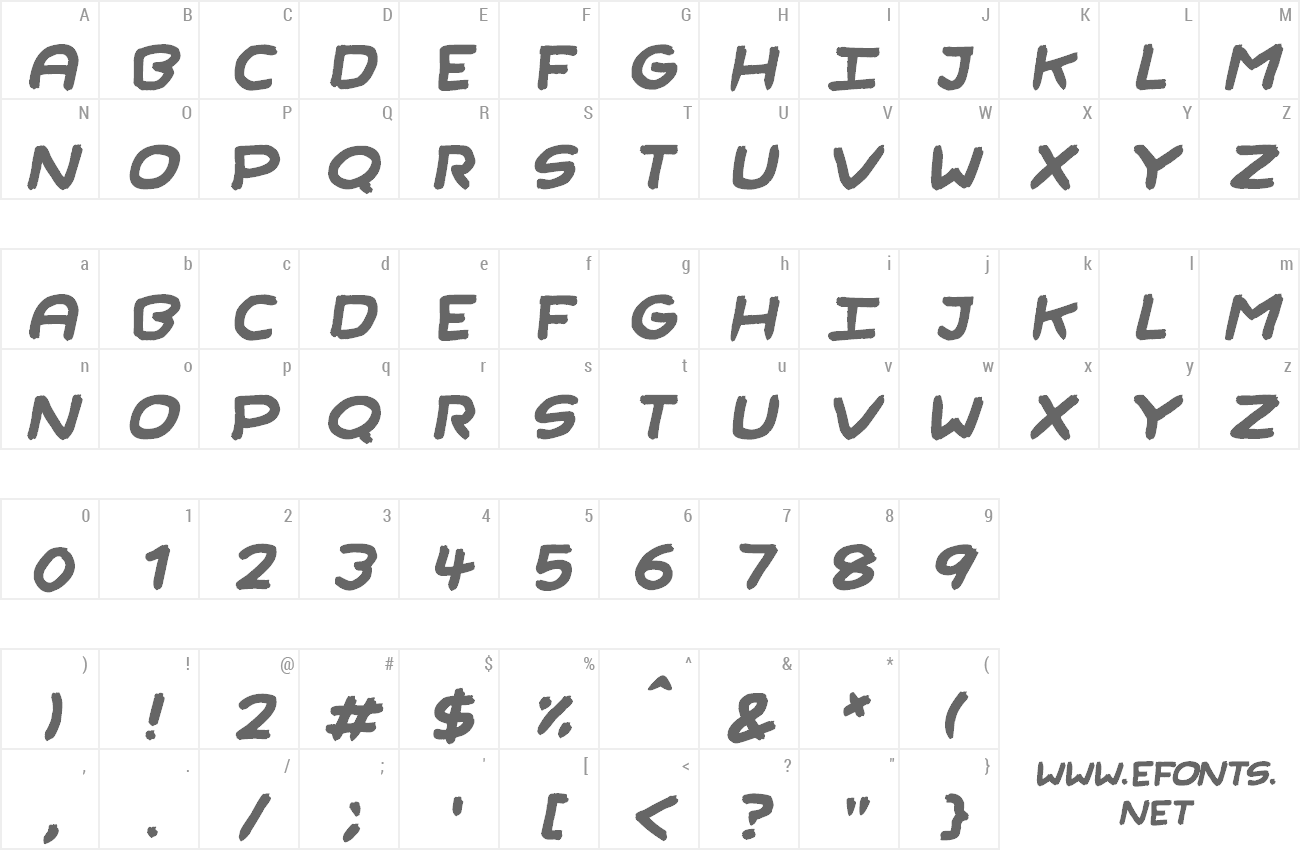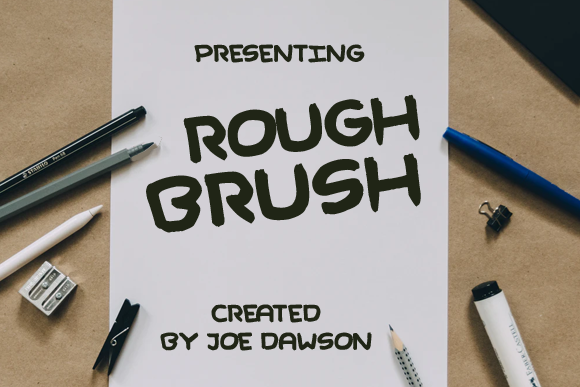
Preview and download Rough Brush Font. Created by Joseph Dawson in Script Brush styles with Donationware license.
This font is for personal use ONLY ... although donations are appreciated! Kindly give as much as you honestly feel the font is worth to you. Paypal account for donation: Rough Brush is a casual handwritten font. Fall in love with its incredibly distinct and timeless style and use it to create spectacular designs! dawsonjoseph333@gmail.com For commercial use you must pay $10 USD. Link to purchase a commercial license : https://www.creativefabrica.com/product/rough-brush-3/ref/236312/ Please visit our store for more great fonts: https://www.creativefabrica.com/ref/236312/ |